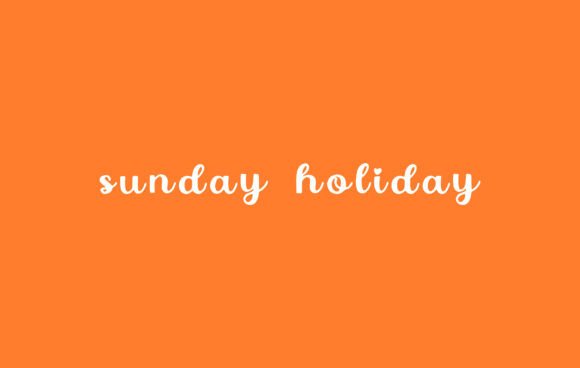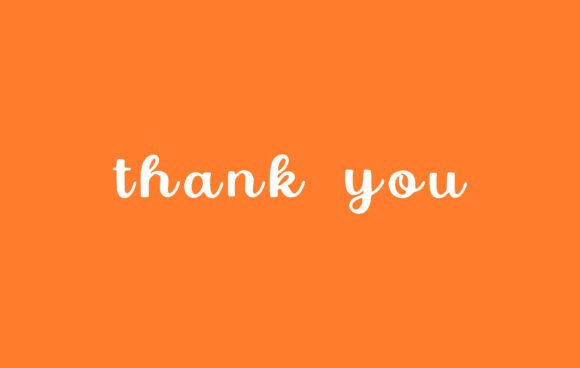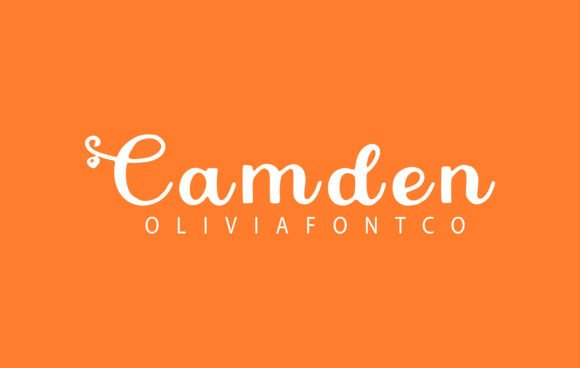
The Charm of Camden Font: Elevate Your Designs with a Romantic Touch
I’ll never forget the time I was working on a wedding invitation project, and my client asked for a font that was both elegant and playful. I scoured the internet, trying out font after font, but nothing seemed quite right. That was until I stumbled upon Camden font. With its authentic handwritten feel and romantic touch, it was love at first sight! In this article, I’ll share my experience with Camden font, its features, and how to make the most of it in your designs.
A Personal Review of Camden Font
As a designer, I’m always on the lookout for fonts that can elevate my projects. Camden font has become a true favorite of mine, and here’s why:
- ✨ Legibility: Camden font is incredibly easy to read, making it perfect for both title and body text.
- ✅ Versatility: Its romantic touch and handwritten feel make it suitable for a wide range of designs, from magazine headlines to wedding invitations.
- 💕 Aesthetic appeal: The font’s unique character and charm add a touch of personality to any design.
Of course, no font is perfect, and Camden font has a few minor quirks:
- 🤔 Limited use of all-caps: While the font looks beautiful in uppercase, it’s not as legible as its lowercase counterpart.
- ⚠️ Occasional kerning issues: As with any font, you may need to adjust the kerning to ensure optimal spacing.
How to Use Camden Font: A Practical Guide
- Experiment with OpenType features, such as Stylistic Alternates, to add more personality to your text.
- Access OpenType features, such as Glyphs and Ligatures, to customize your text.
The Story Behind Camden Font
Camden font was designed with the intention of creating a unique, handwritten font that captures the essence of romance and elegance. The designer aimed to craft a font that would be both legible and beautiful, making it perfect for a wide range of creative projects.
| What type of designs is Camden font best suited for? | Camden font is versatile and can be used for various designs, including magazine headlines, social media graphics, wedding invitations, and more. |
| Is Camden font legible? | Yes, Camden font is highly legible, making it perfect for both title and body text. |